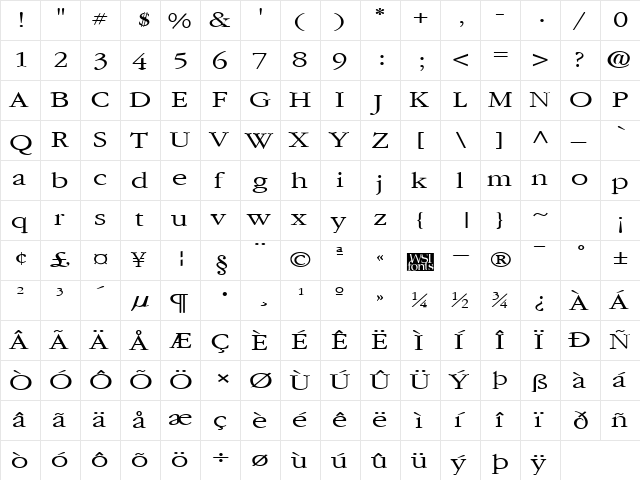
GarnetBroad Regular
Design Context for GarnetBroad Typeface
GarnetBroad offers clean, dependable letterforms without strong stylistic allegiance, making it a practical choice for designers who need flexibility.
Pro Tip: Use GarnetBroad in both headline and body roles to test its range before committing to a single application.